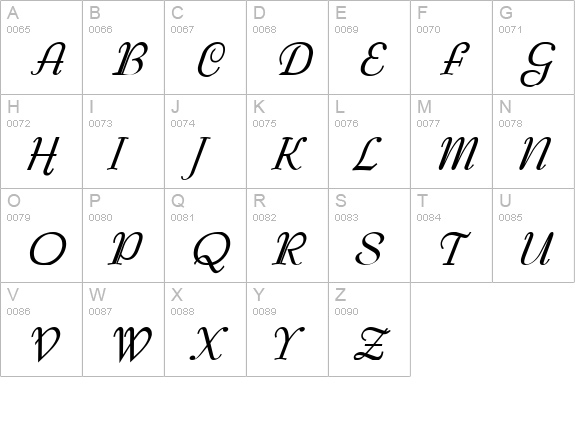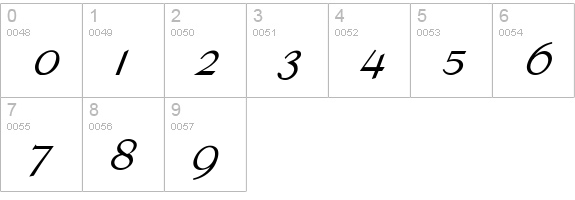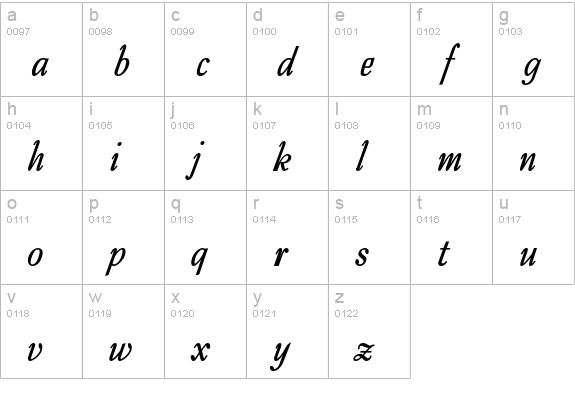
Tango Bold Italic is a strong, high-contrast, italic variant in the Tango typeface family \xE2\x80\x94 well suited to headlines, attention-grabbing titles, and strong calls-to-action.
Introducing Tango Bold Italic, a stunning font that exudes elegance and sophistication. This unique typeface combines the boldness of Tango with a touch of italic flair, resulting in a captivating design that is perfect for making a statement. With its sleek lines and eye-catching curves, Tango Bold Italic is sure to grab attention and leave a lasting impression. What sets Tango Bold Italic apart is not only its impeccable design but also its accessibility. This extraordinary font is freely available to download at FontsMarket.com, making it a versatile choice for both personal and commercial projects. Whether you're designing a logo, a website, or creating eye-catching marketing materials, Tango Bold Italic will elevate your work to new heights. The exceptional versatility of Tango Bold Italic is evident in its ability to adapt to various contexts. Its bold and italic features effortlessly blend together, creating a harmonious balance that adds a touch of sophistication to any project. This font is equally suited for headlines, titles, and body text, delivering a consistent and polished look throughout your design. With Tango Bold Italic, you have the freedom to explore endless creative possibilities. Its clean and modern aesthetic makes it a perfect choice for projects that require a contemporary touch. Whether you're aiming for a professional and authoritative look or a trendy and edgy vibe, Tango Bold Italic has got you covered. So why wait? Discover the power of Tango Bold Italic today and enhance your designs with its undeniable allure. Download this incredible font for free at FontsMarket.com and let your creativity soar to new heights. With Tango Bold Italic, you'll be able to effortlessly captivate your audience and make a lasting impression.